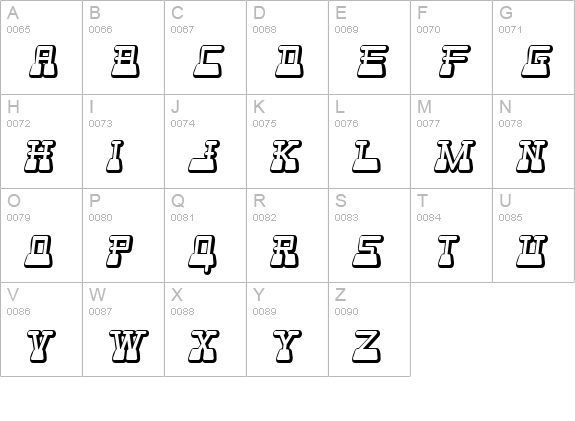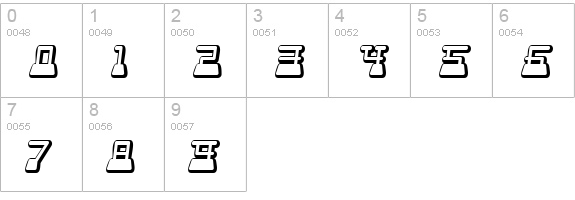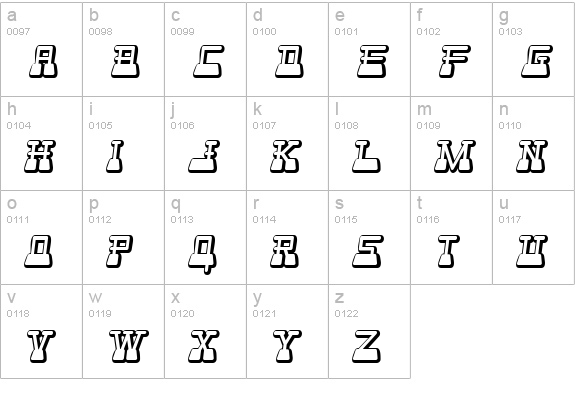
Webster World Font Details
Introducing Webster World, a captivating and versatile font that will transport you to a realm of endless creativity. This font is the perfect embodiment of elegance, sophistication, and modernity, making it an ideal choice for a wide range of design projects. Webster World features a unique blend of sleek lines and graceful curves, lending a touch of refinement to any text it adorns. Its balanced proportions and carefully crafted letterforms ensure optimum legibility, guaranteeing that your message will be conveyed with clarity and impact. What sets Webster World apart is not only its exceptional aesthetics but also its accessibility. Unlike many other premium fonts, Webster World is free, opening up a world of possibilities for designers, creatives, and enthusiasts alike. This means you can effortlessly elevate your projects without breaking the bank. To download Webster World, simply head over to FontsMarket.com, where you can freely access this font and embark on your creative journey. Whether you're designing a logo, crafting invitations, or designing a website, Webster World will effortlessly elevate your work with its timeless appeal. Unlock the potential of your designs with Webster World and unleash your creativity like never before. Don't miss out on this incredible opportunity to add a touch of sophistication and elegance to your projects, all while enjoying the freedom of a free font. Download Webster World today and let your imagination soar.